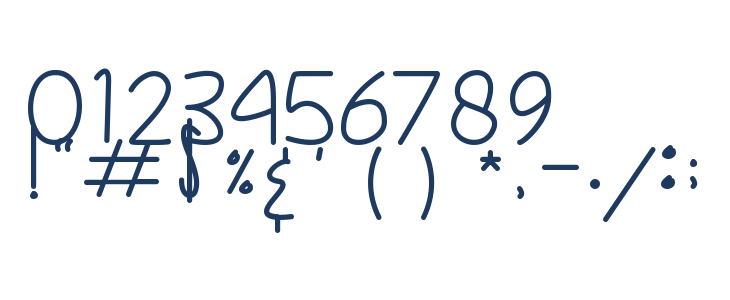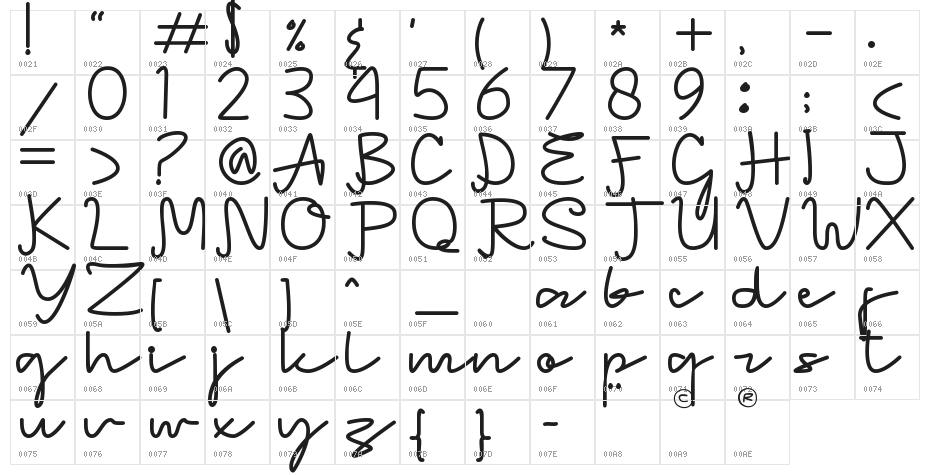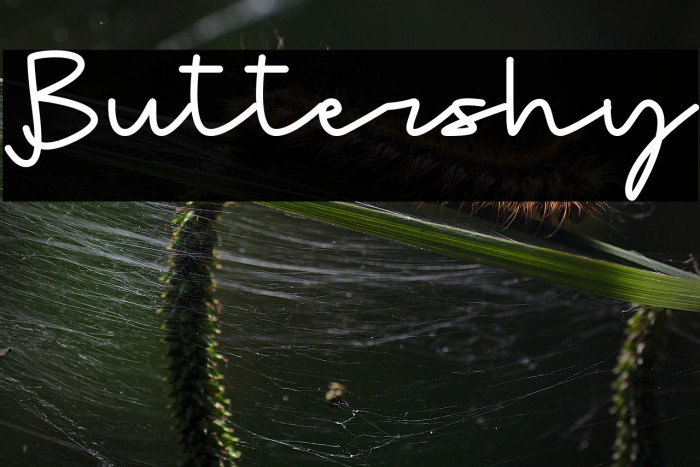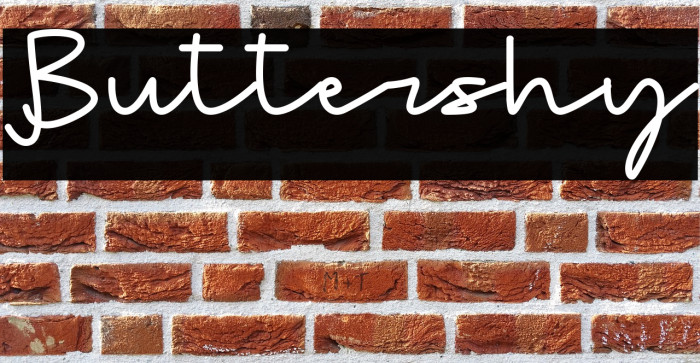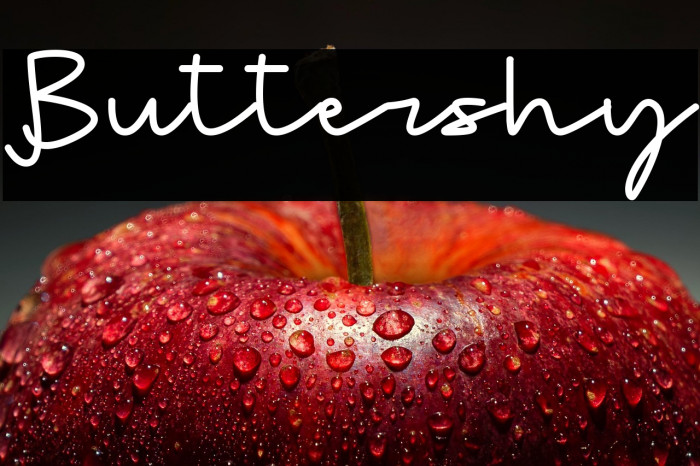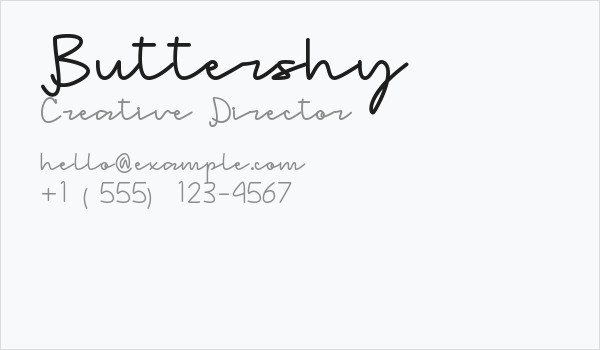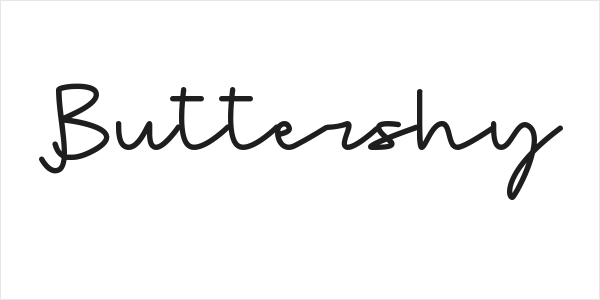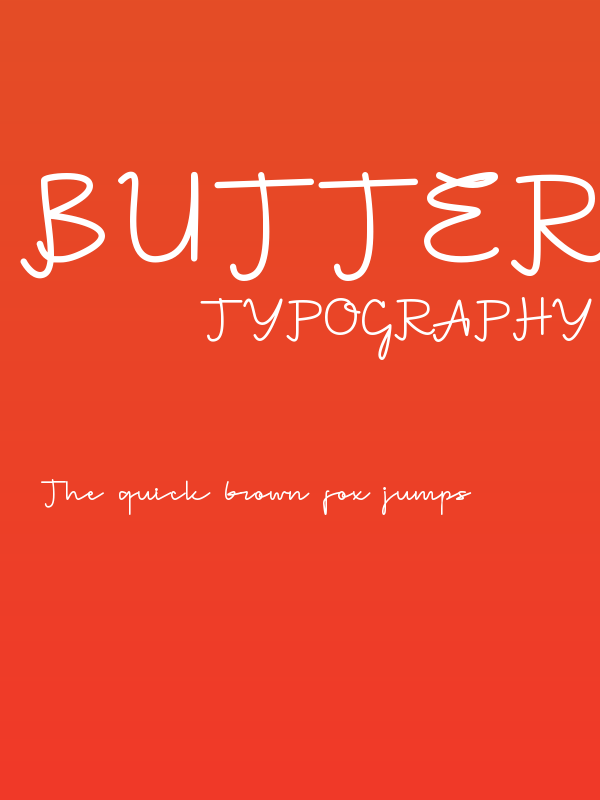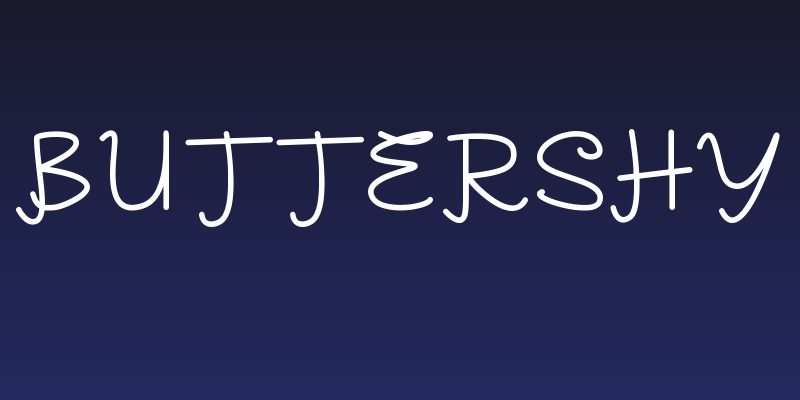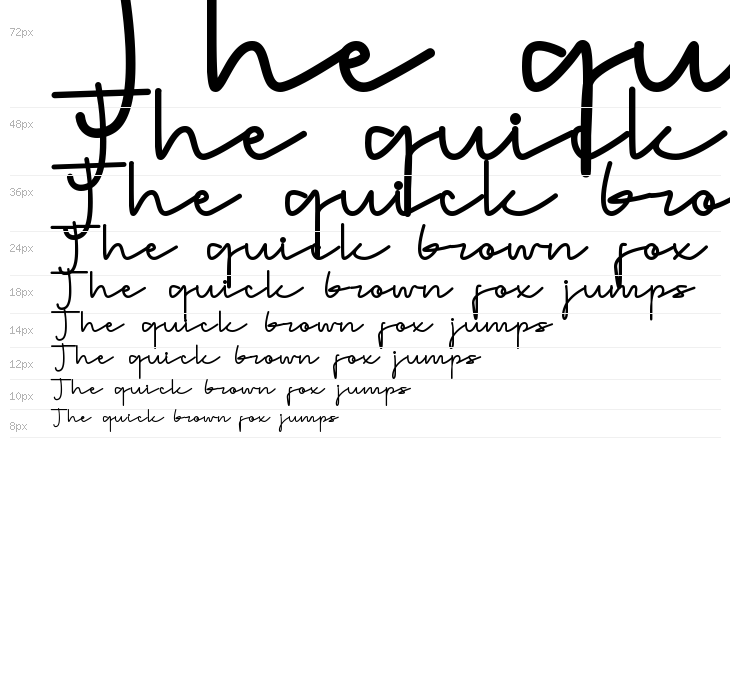
Buttershy Font
Buttershy Description
This font features a playful and casual handwritten style, characterized by its smooth, flowing lines and slightly irregular shapes that give it a personal touch. The uppercase letters are bold and rounded, with a whimsical flair that adds a sense of fun and creativity. The lowercase letters maintain a consistent flow, enhancing readability while retaining the font's unique charm. Numbers are clear and distinct, with a slight slant that complements the overall style. Special characters are well-integrated, maintaining the font's cohesive look. This font is perfect for projects that require a friendly and approachable aesthetic.